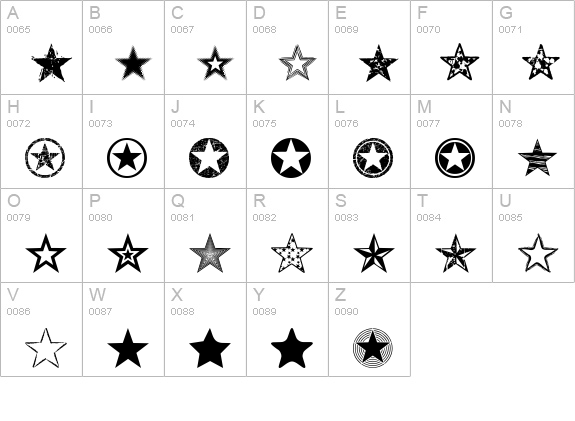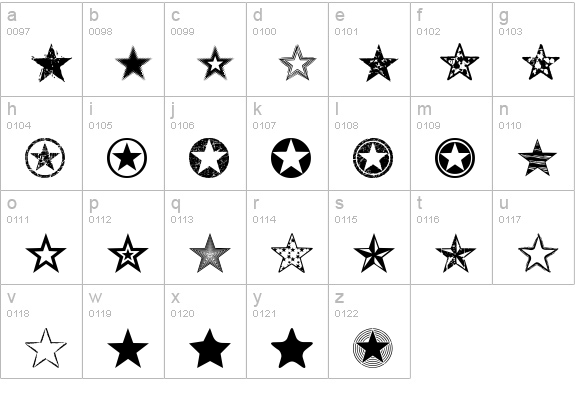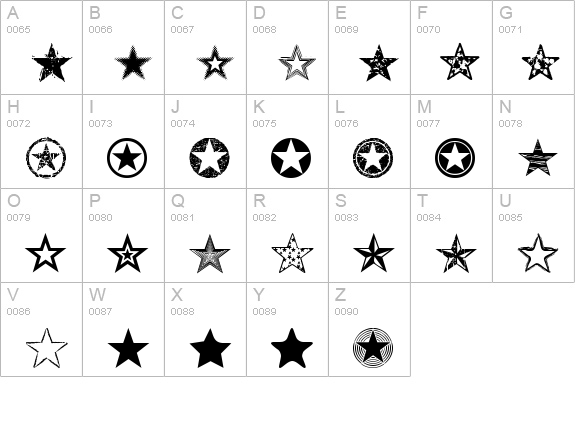
Introducing the mesmerizing Seeing Stars font, a breathtaking typographic masterpiece that will transport you to the celestial realms with its ethereal charm. This font is a true embodiment of elegance and sophistication, presenting a perfect blend of celestial inspiration and modern design. Seeing Stars font captivates the viewer with its celestial-themed letterforms that seem to twinkle and shimmer like the stars in the night sky. Each character is carefully crafted with intricate details, showcasing a harmonious balance between clean lines and delicate curves. The result is a truly unique typeface that stands out from the crowd, making a bold statement in any design project. This font is not only visually appealing but also highly versatile, making it suitable for a wide range of applications. Whether you're designing a celestial-themed poster, a dreamy wedding invitation, or a cosmic logo, Seeing Stars font will add a touch of magic and wonder to your creations. And the best part? Seeing Stars font is available for free! You can easily download this enchanting typeface at FontsMarket.com, a trusted source for high-quality fonts. This means you can unleash your creativity without any limitations or restrictions, freely exploring the endless possibilities that Seeing Stars font has to offer. Don't miss out on the opportunity to add a celestial touch to your designs. Download Seeing Stars font today and embark on a journey through the cosmos, where imagination knows no bounds.